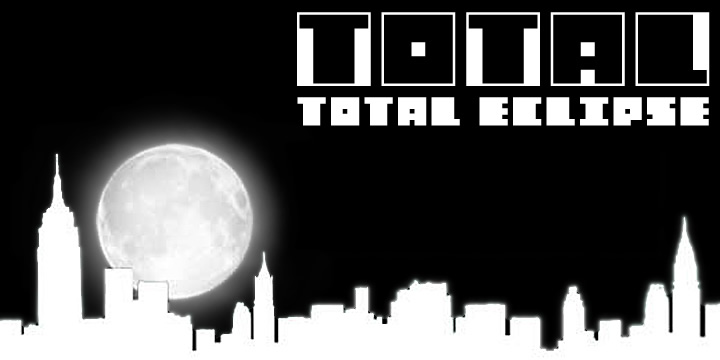
Total
A display font based on the four characters of Jaroslav Supek’s title lettering for his 1980s mailart magazine, Total.
The boxed regular Total is accompanied by a free Eclipse version.